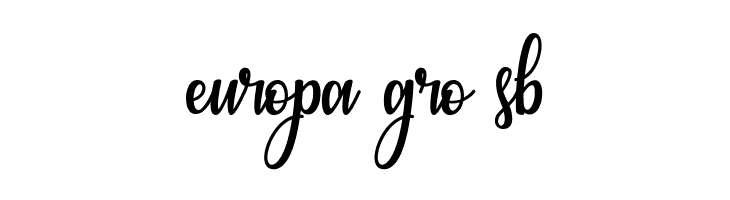
An elegant calligraphic font with ornate flourishes and a graceful flow.
A playful and whimsical script font with decorative loops and elegant flourishes.
An elegant script font with flowing, ornate characters and high contrast strokes.
An elegant script font with flowing, interconnected letterforms and ornate details.